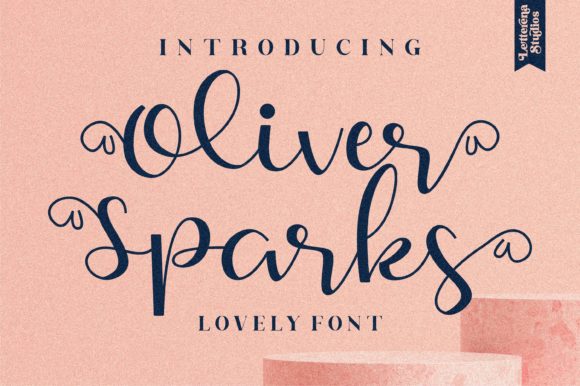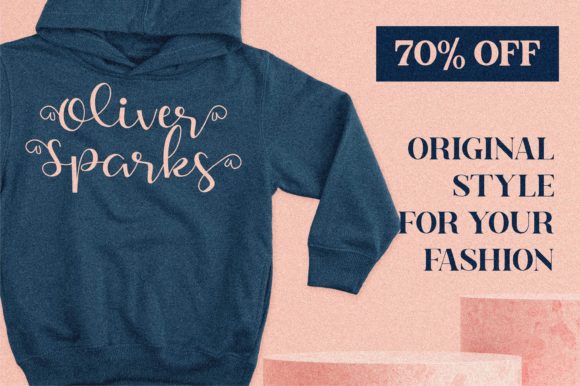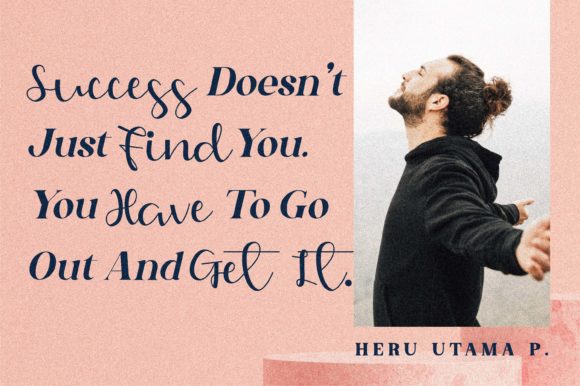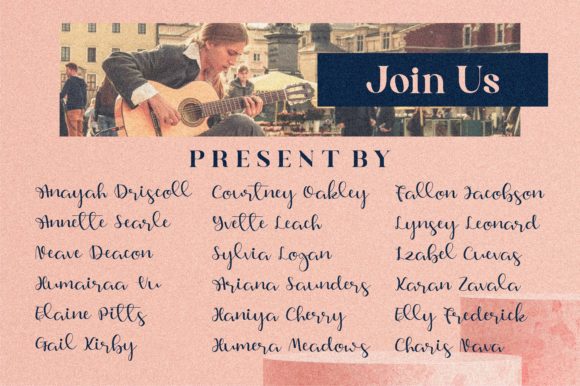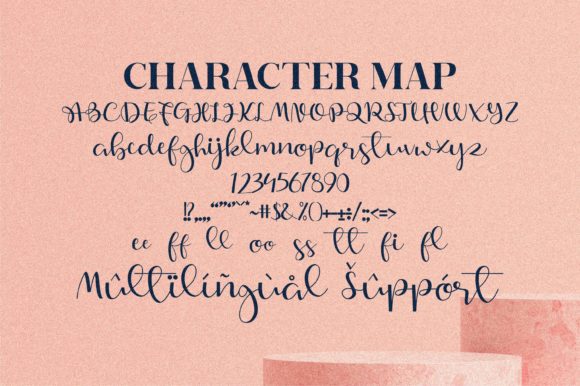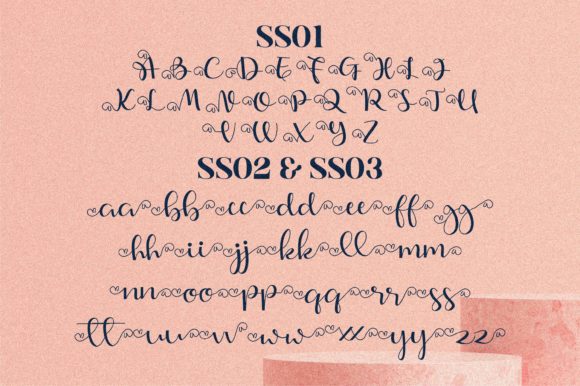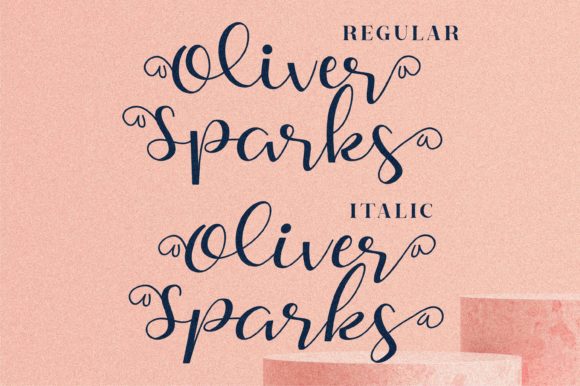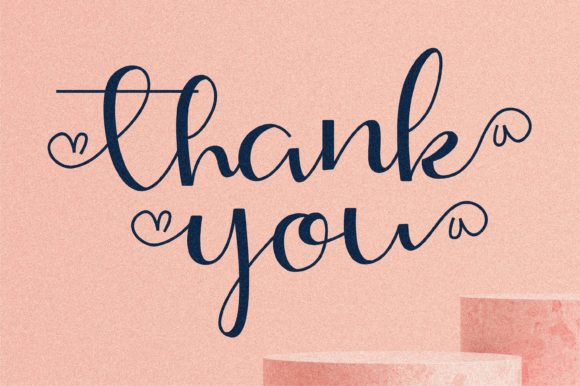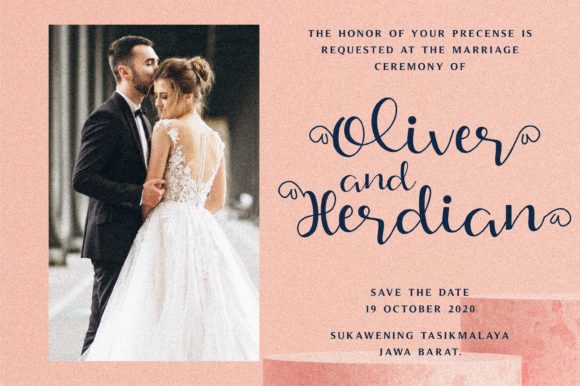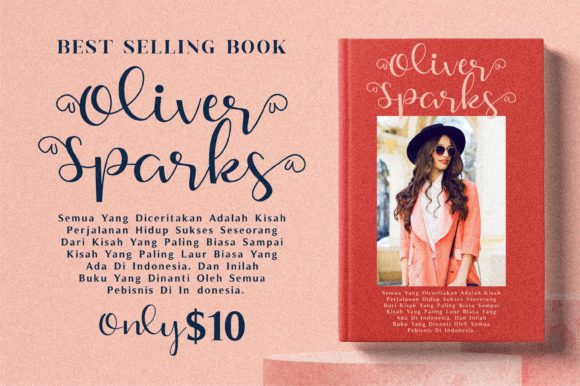
Oliver Sparks Font
Oliver Sparks is a delightful and fashionable handwritten font that exudes sweetness and charm. With its dainty and jolly appearance, this font is perfect for adding a romantic and personalized touch to your designs, especially for wedding invitations, greeting cards, and other projects that require a touch of elegance.
The unique and stylish letters of Oliver Sparks font make it a standout choice for any design that aims to capture a sense of joy and romance. Whether you’re creating wedding stationery, love-themed cards, or other romantic projects, this font will bring a whimsical and personalized feel to your designs.
The inclusion of glyphs and swashes in Oliver Sparks font, which are accessible through PUA encoding, offers you additional creative possibilities. You can easily enhance your designs with beautiful flourishes, decorative elements, and alternate characters that add flair and uniqueness to your typography.
The versatility of Oliver Sparks font allows it to be used in various contexts beyond weddings and romantic themes. It can also be applied to fashion branding, editorial designs, social media posts, and more. Its fashionable and playful nature makes it an excellent choice for adding a touch of elegance and style to any project.
In summary, Oliver Sparks is a sweet and fashionable handwritten font that brings a sense of charm and joy to your designs. Its dainty and jolly appearance makes it ideal for romantic and personalized projects, such as wedding invitations and cards. With the added benefit of PUA encoding, you have access to a range of glyphs and swashes to further enhance your designs. Let Oliver Sparks font elevate your creations and bring a delightful touch to your design projects.